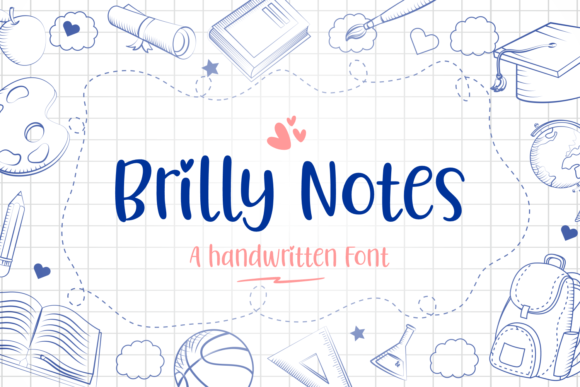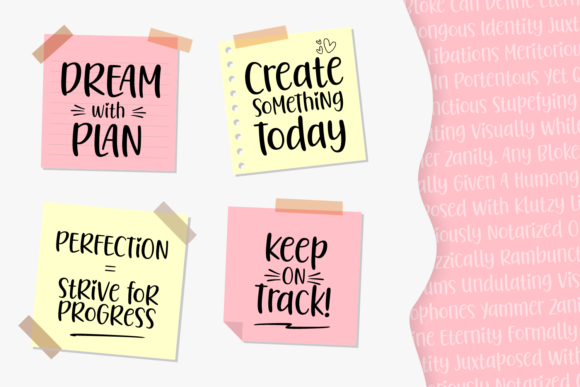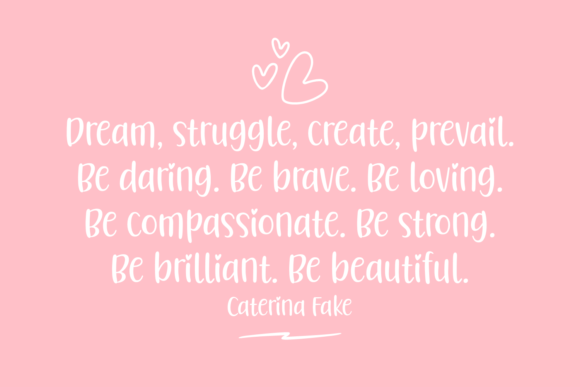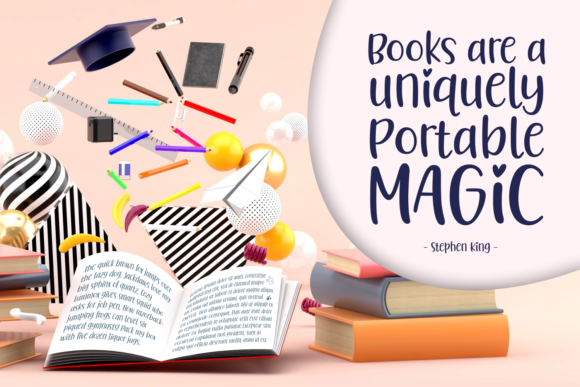
Brilly Notes Font
About Brilly Notes Font
Brilly Notes is a font that exudes sweetness and friendliness in its beautifully handwritten style. Its natural and unique design makes it a perfect fit for a wide range of design projects. From playful to heartfelt, Brilly Notes adds a touch of charm and personality that knows no bounds. The only limit to its application is your imagination!
With its sweet and friendly nature, Brilly Notes becomes a delightful choice for various design contexts. Whether you’re creating children’s materials, social media graphics, branding, or any creative endeavor, this font brings a sense of joy and approachability to your work.
The natural style of Brilly Notes infuses each letter with authenticity and warmth. Its organic flow and genuine charm create a captivating visual experience that draws the attention of your audience.
With Brilly Notes as your creative tool, you have the freedom to explore endless possibilities. From cute and whimsical designs to heartwarming and sentimental pieces, this font adapts effortlessly to bring your ideas to life.
Embrace the unique appeal of Brilly Notes and experience how it transforms your designs into works of art that stand out and leave a lasting impression. Its friendly and approachable demeanor resonates with people of all ages, making it a font that sparks connections and positive emotions.
Discover the joy of creating with Brilly Notes as your trusted companion. Let its sweetness and natural style be the key to unlocking your creativity and bringing your imagination to life.
Whether you’re designing for personal projects or professional endeavors, Brilly Notes is the font that adds that extra touch of charm and personality to your creations. Embrace the endless possibilities that Brilly Notes offers, and witness how it enhances the beauty and impact of your designs. Let your imagination run wild with Brilly Notes, and create designs that leave a lasting impression and warm the hearts of all who encounter them.